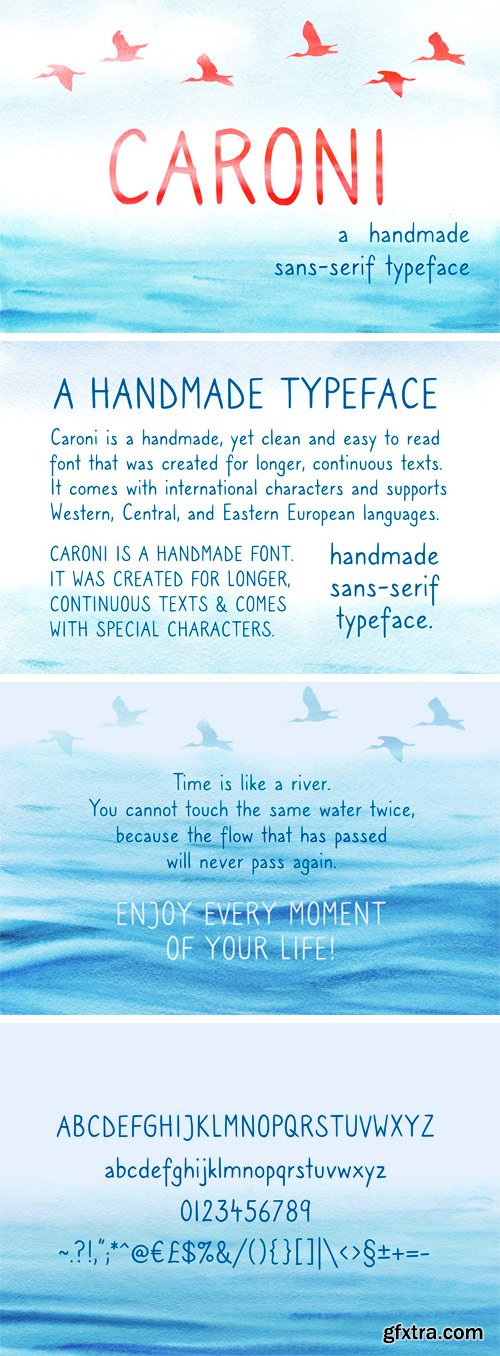
CM - Caroni - A Handmade Typeface 2558799
Caroni is a handwritten font that was created for longer texts - it is therefore clean and easy to read, yet it'll give your projects that special, handmade touch. Of course you can also use it for headlines, business cards, product names etc.